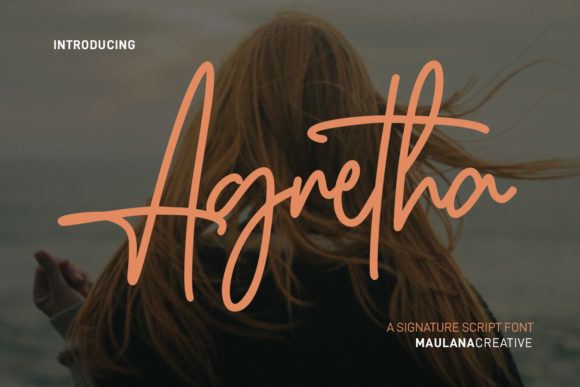
Introducing Agretha Font: Elevate Your Designs with a Signature Script Font
Are you looking for a font that can add a touch of elegance and sophistication to your designs? Look no further than Agretha Font, a signature script font that is sure to elevate a wide range of design ideas. With its regular mono-line strokes, fun characters, ligatures, and alternates, Agretha Font is the perfect choice for designers who want to add a personal touch to their work.
Key Features of Agretha Font
- Regular Mono-line Strokes: Agretha Font features regular mono-line strokes that give it a smooth and elegant look.
- Fun Characters: The font includes a range of fun characters that can add a playful touch to your designs.
- Ligatures: Agretha Font features ligatures, which are special characters that combine two or more letters to create a unique and stylish effect.
- Alternates: The font also includes alternates, which are alternative characters that can be used to add variety to your designs.
Design Applications for Agretha Font
Agretha Font is a versatile font that can be used in a wide range of design applications, including:
- Logos and Branding: Agretha Font is perfect for creating logos and branding materials that require a touch of elegance and sophistication.
- Wedding Invitations: The font’s elegant and refined look makes it ideal for wedding invitations and other formal events.
- Social Media Graphics: Agretha Font can be used to create social media graphics that are both stylish and engaging.
- Packaging Design: The font’s unique and stylish look makes it perfect for packaging design, where it can be used to create eye-catching labels and packaging materials.
Typography Tips for Using Agretha Font
To get the most out of Agretha Font, here are some typography tips to keep in mind:
- Use it as a Headline Font: Agretha Font is perfect for use as a headline font, where its elegant and refined look can be used to create eye-catching titles and headings.
- Pair it with a Sans-Serif Font: For body text, pair Agretha Font with a sans-serif font to create a stylish and readable combination.
- Experiment with Ligatures: Don’t be afraid to experiment with ligatures and alternates to add a unique and stylish touch to your designs.
The Benefits of Using Agretha Font
So why should you choose Agretha Font for your designs? Here are just a few benefits of using this signature script font:
- Elegant and Refined Look: Agretha Font has an elegant and refined look that is sure to elevate your designs.
- Versatile: The font is versatile and can be used in a wide range of design applications.
- Easy to Read: Despite its elegant look, Agretha Font is easy to read, making it perfect for use in body text.
- Unique and Stylish: The font’s unique and stylish look is sure to make your designs stand out from the crowd.
In conclusion, Agretha Font is a signature script font that is sure to elevate a wide range of design ideas. With its regular mono-line strokes, fun characters, ligatures, and alternates, this font has everything you need to create elegant and sophisticated designs. Whether you’re creating logos and branding materials, wedding invitations, social media graphics, or packaging design, Agretha Font is the perfect choice.